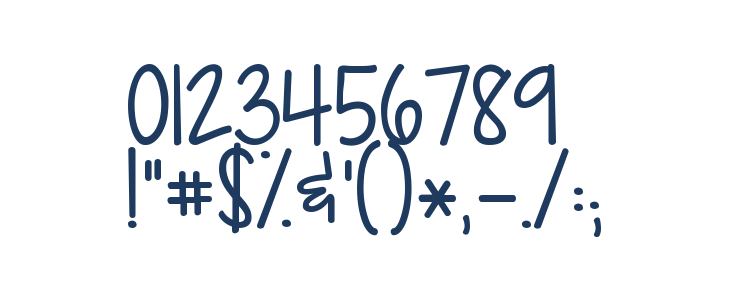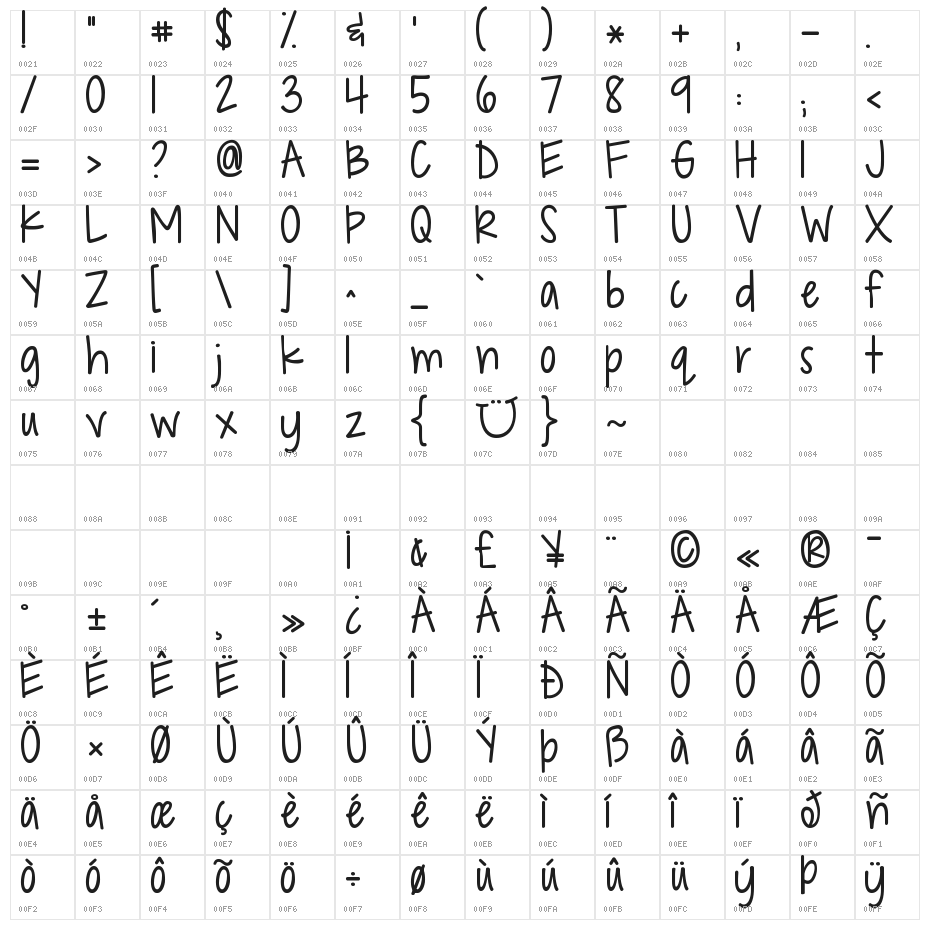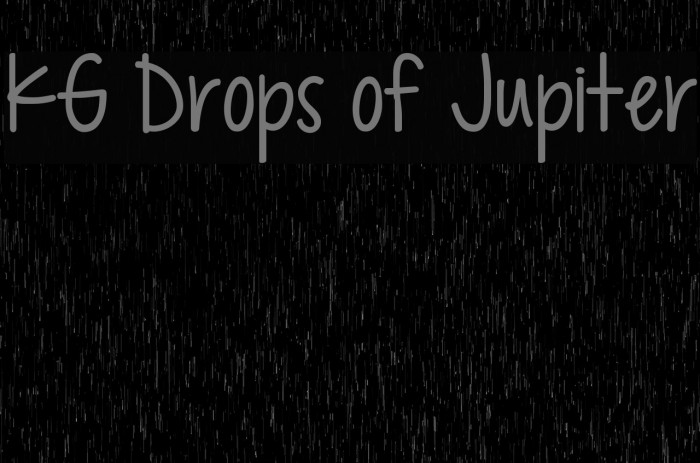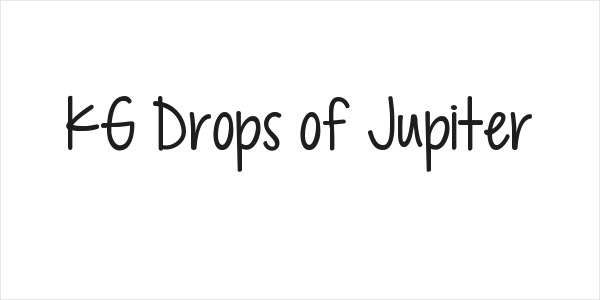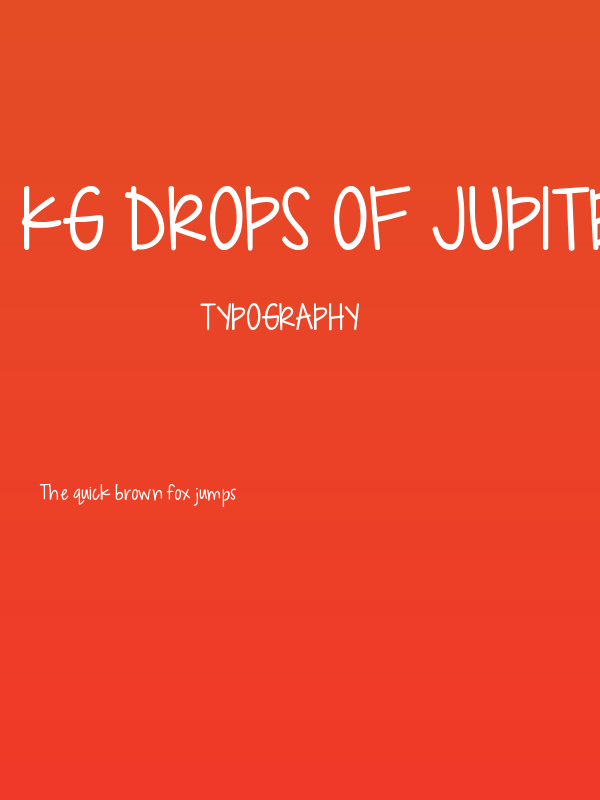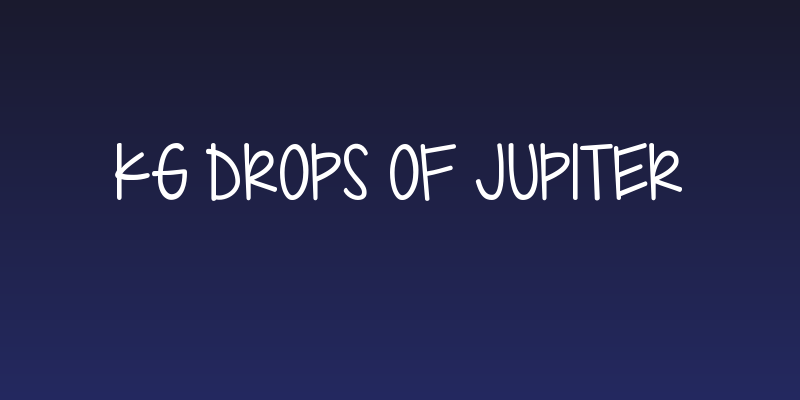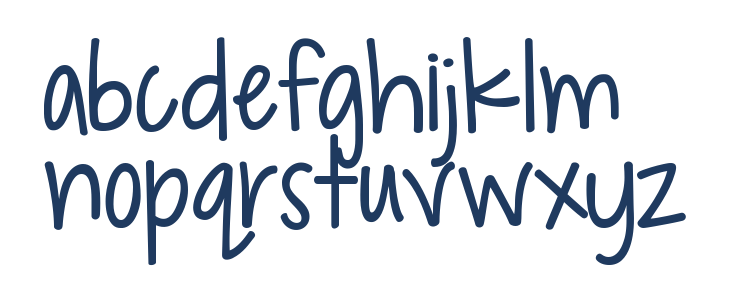
KG Drops of Jupiter Font
KG Drops of Jupiter Description
This playful and whimsical font features a handwritten style with a casual and friendly appearance. The characters are slightly irregular, giving it a personal touch that mimics natural handwriting. The strokes are smooth and rounded, with a consistent thickness throughout, contributing to its approachable and informal look. The font includes both uppercase and lowercase letters, numerals, and a variety of special characters, making it versatile for different uses. Its unique style is perfect for projects that require a personal or creative flair.
| Proposed Projects | Ideal for greeting cards, children's books, personal blogs, and creative branding projects. |